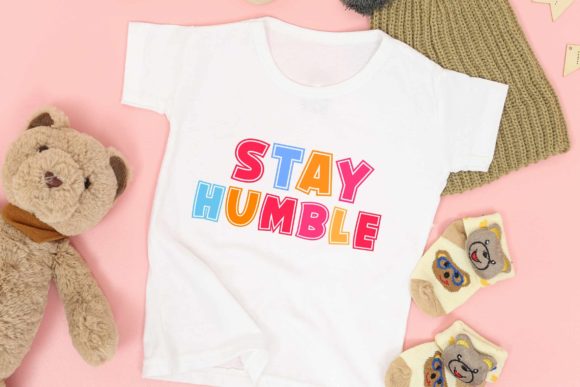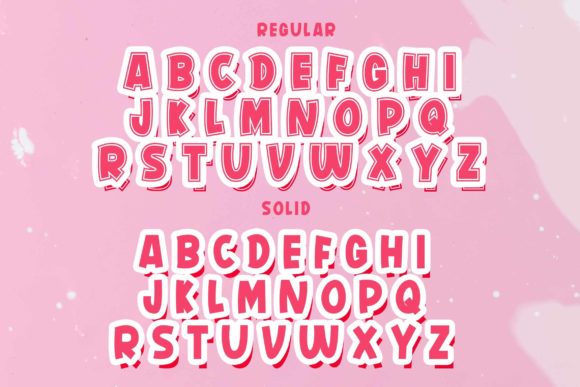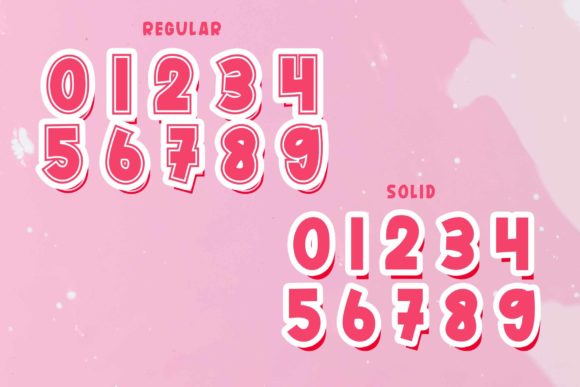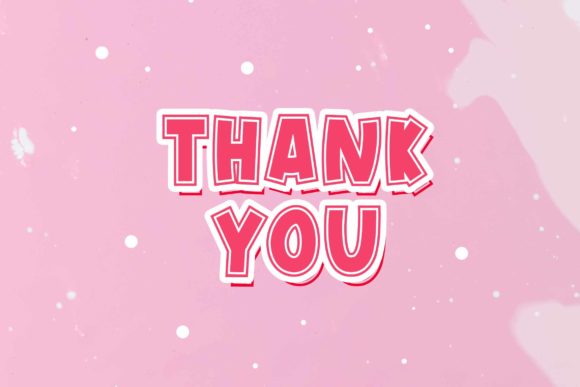
Introducing Comedo Font: The Playful and Colorful Display Font for Creative Designs
Are you tired of using the same old fonts for your designs? Look no further! Comedo Font is here to add a splash of color and playfulness to your creative projects. This versatile and easy-to-read display font is perfect for logo designs, cartoons, children’s themed designs, and many more. In this article, we’ll dive into the features and benefits of Comedo Font, and explore how it can become your go-to font for all your design needs.
What is Comedo Font?
Comedo Font is a modern display font that boasts a unique and eye-catching design. Its playful and colorful aesthetic makes it perfect for designs that require a fun and youthful touch. The font is carefully crafted to be versatile and easy to read, making it suitable for a wide range of applications, from logo designs to children’s books.
Key Features of Comedo Font
- Playful and Colorful: Comedo Font features a vibrant and playful design that’s sure to grab attention.
- Versatile: The font is suitable for a wide range of designs, including logo designs, cartoons, children’s themed designs, and more.
- Easy to Read: Comedo Font is carefully crafted to be easy to read, making it perfect for designs that require clear and concise text.
- Modern Aesthetic: The font boasts a modern and fresh design that’s perfect for designs that require a contemporary look.
Benefits of Using Comedo Font
So, why should you choose Comedo Font for your designs? Here are just a few benefits of using this amazing font:
- Adds a Touch of Whimsy: Comedo Font adds a playful and whimsical touch to your designs, making them stand out from the crowd.
- Perfect for Children’s Designs: The font’s colorful and playful aesthetic makes it perfect for children’s themed designs, such as children’s books, posters, and more.
- Great for Logo Designs: Comedo Font is suitable for logo designs, and its unique design ensures that your logo will stand out.
How to Use Comedo Font in Your Designs
Using Comedo Font in your designs is easy! Here are a few tips to get you started:
- Pair it with Other Fonts: Comedo Font pairs well with other fonts, so don’t be afraid to experiment with different combinations.
- Use it for Headings: The font is perfect for headings and titles, and its playful aesthetic ensures that your text will stand out.
- Add Color: Comedo Font comes in a range of colors, so don’t be afraid to add a pop of color to your designs.
In conclusion, Comedo Font is a playful, colorful, and attractive display font that’s perfect for designers and crafters. Its versatile and easy-to-read design makes it suitable for a wide range of applications, from logo designs to children’s themed designs. With its modern aesthetic and whimsical touch, Comedo Font has the potential to become your favorite font for all your design needs. So why wait? Add Comedo Font to your design arsenal today and start creating stunning designs that stand out from the crowd!